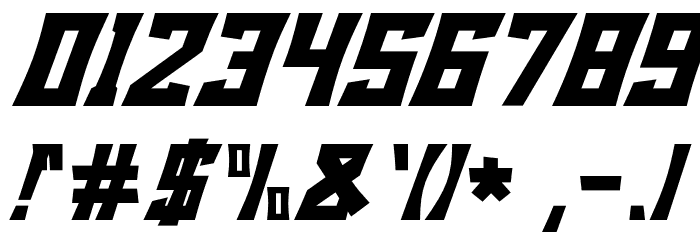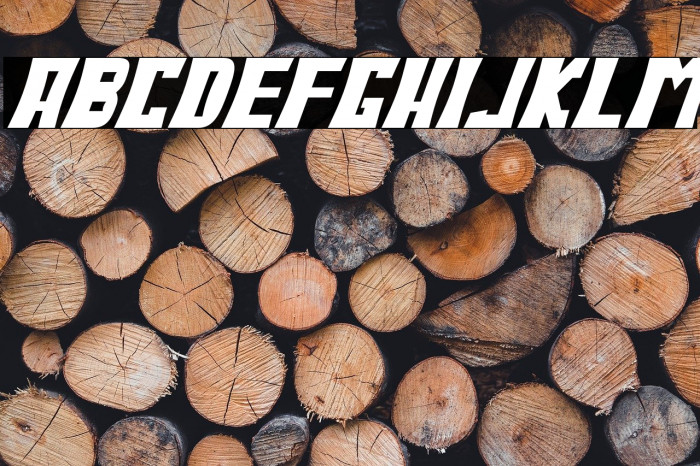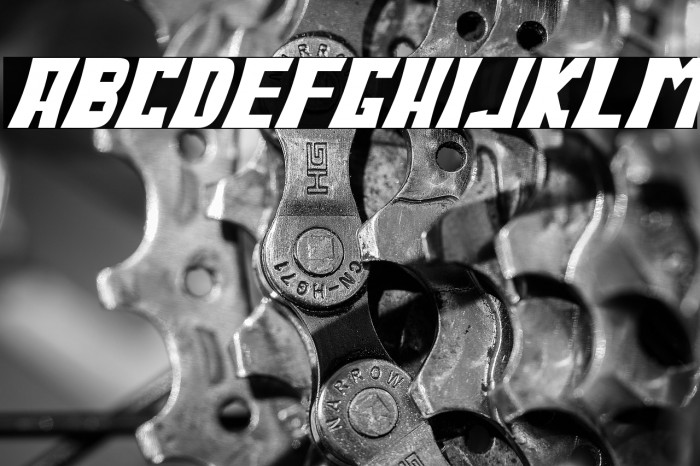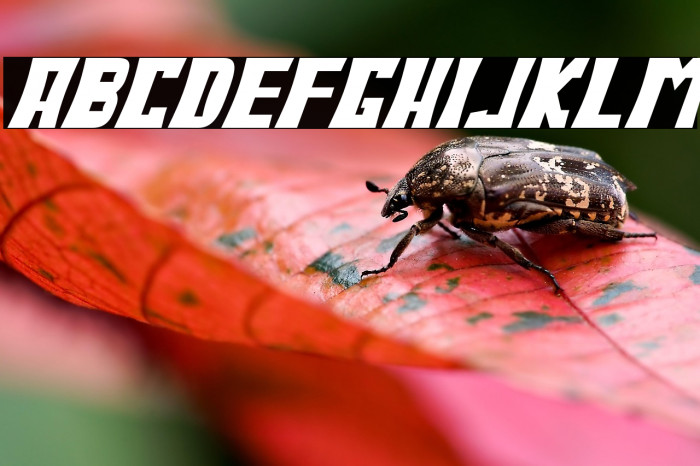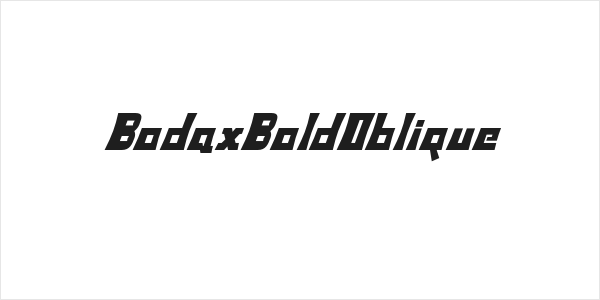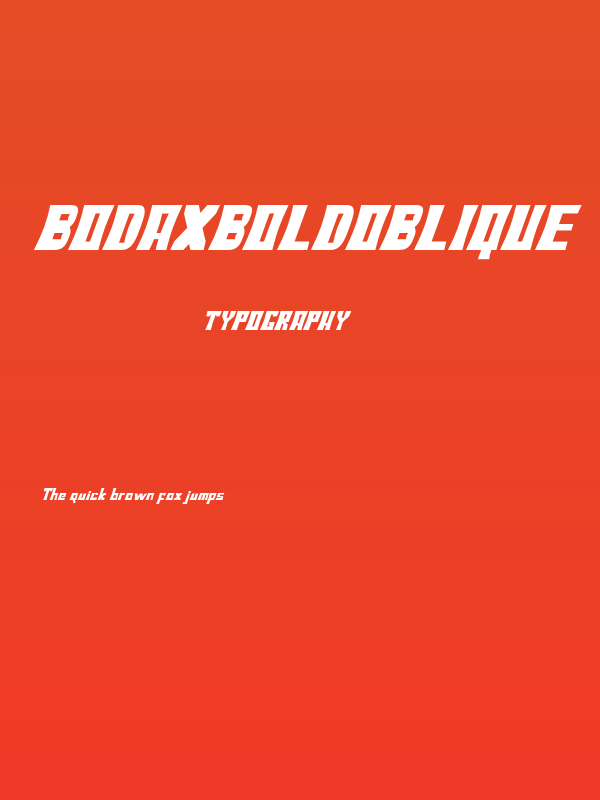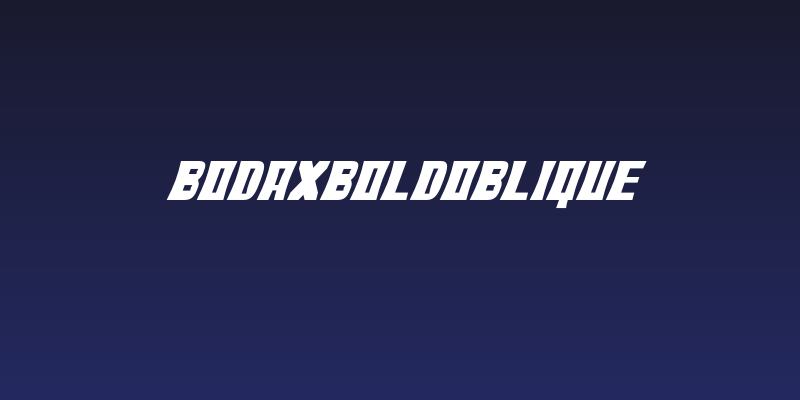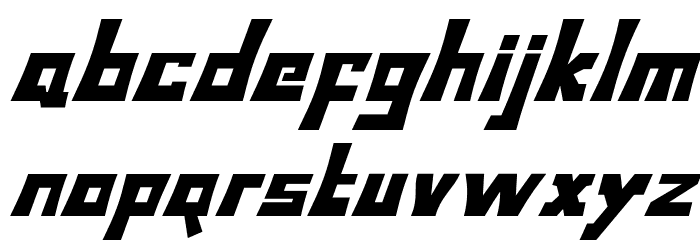
BodaxBoldOblique Font
BodaxBoldOblique Description
This font features a bold and dynamic style with a strong oblique slant, giving it a sense of motion and energy. The characters are sharply angular, with thick strokes that convey a sense of strength and impact. The uppercase and lowercase letters maintain a consistent geometric form, while the numerals and special characters complement the overall aesthetic with their bold presence. The font's design is both modern and assertive, making it suitable for attention-grabbing applications.
| Proposed Projects | Ideal for sports branding, action movie posters, dynamic logos, and video game titles. |